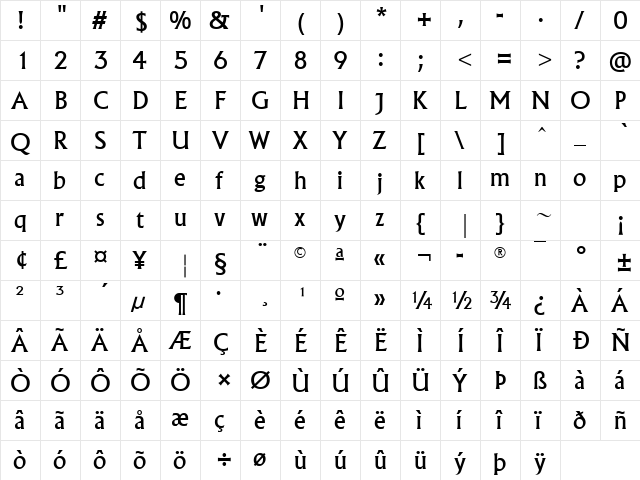
Alaska Regular Font Preview
Alaska Regular
Alaska Regular Font Details
Design Context for Alaska Typeface
Alaska takes a measured approach to typography — its balanced proportions and neutral character make it a reliable workhorse for both digital and print work.